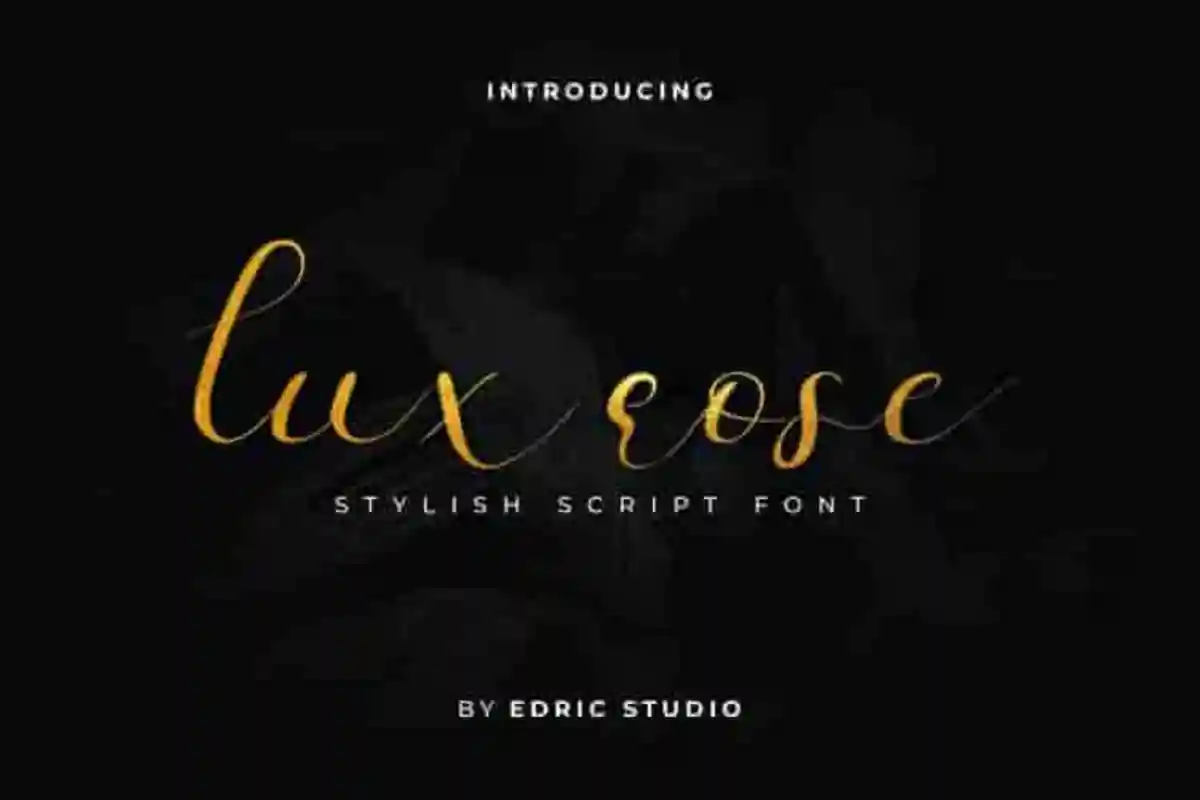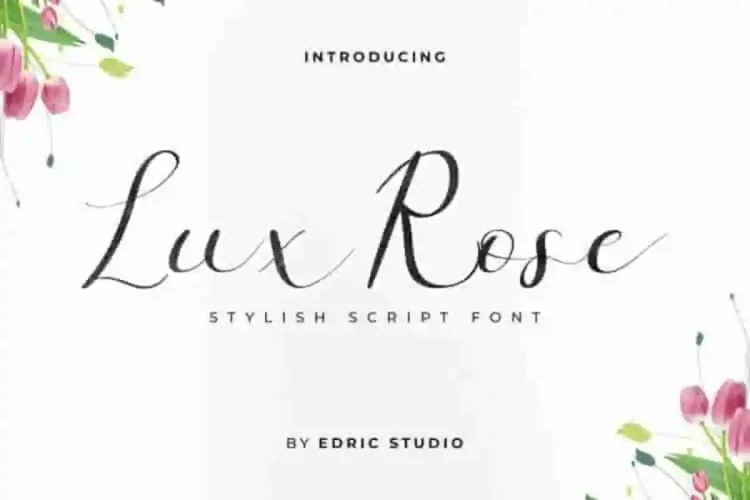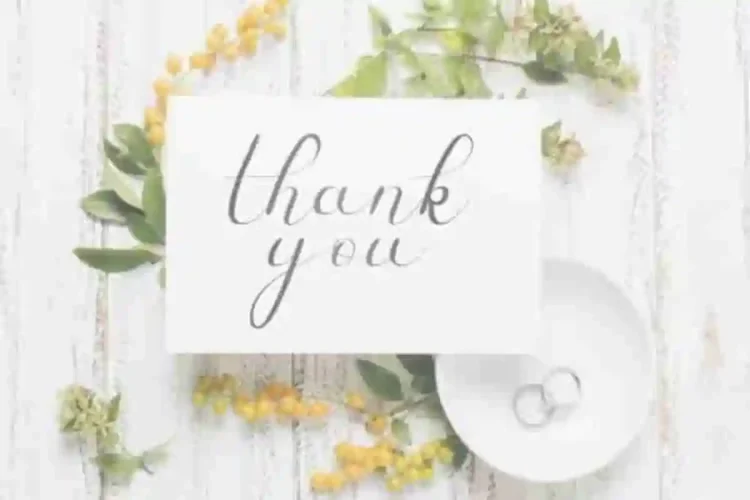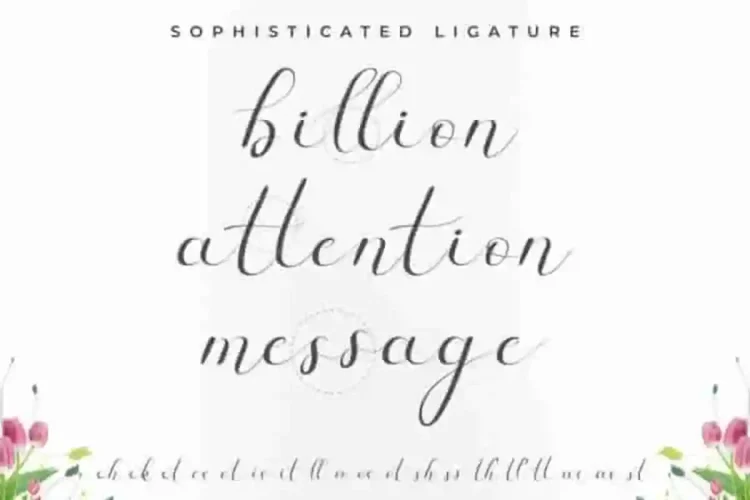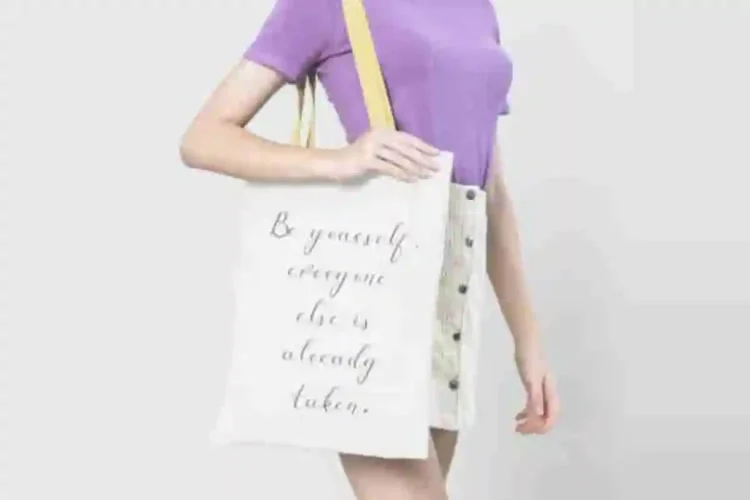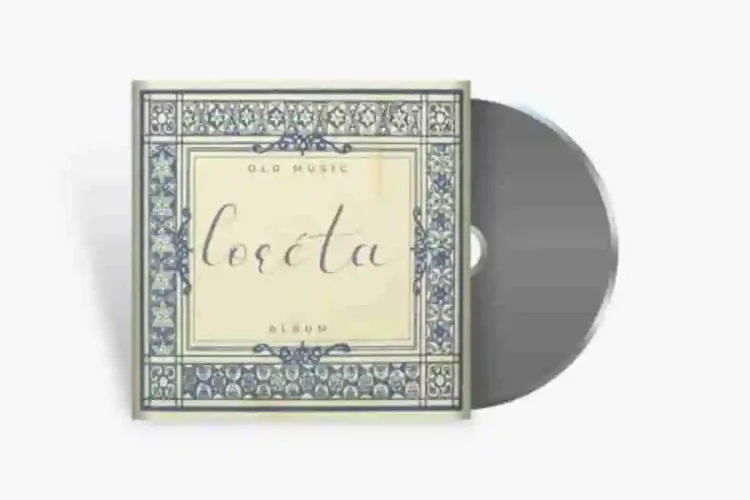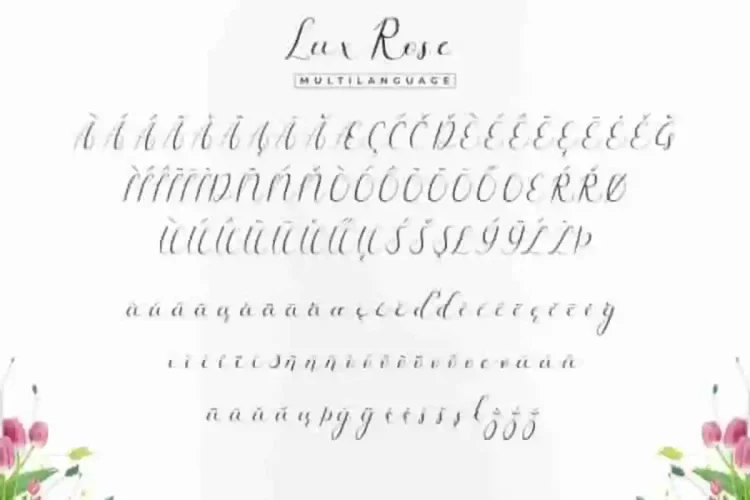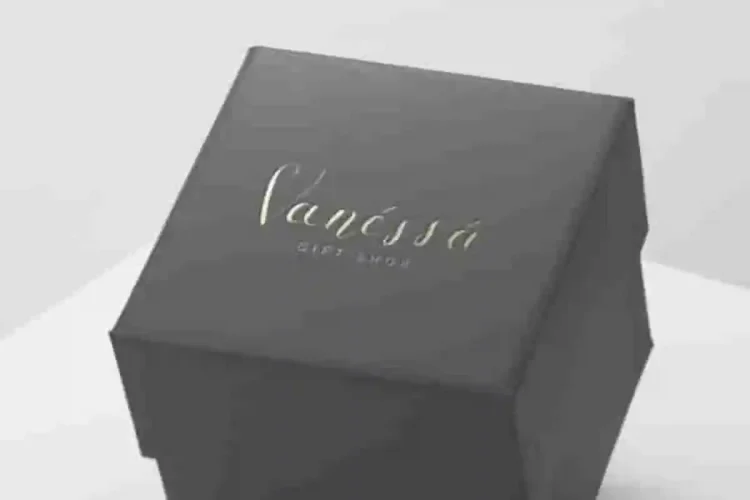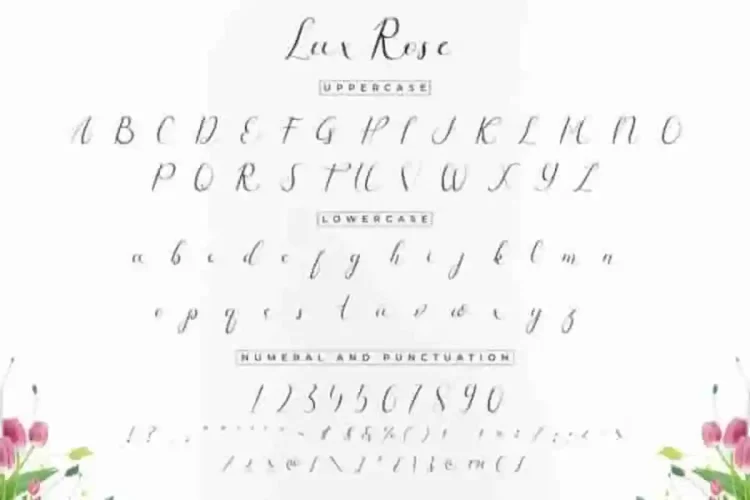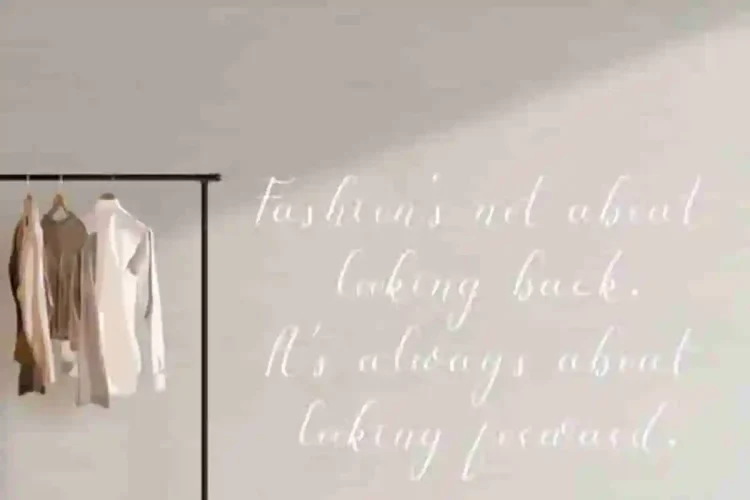
Lux Rose Calligraphy Script Font
EDRIC Studio, Present to you : Lux Rose Calligraphy Script Font
This is our newest product, handmade by Widi and Sarah. This is a luxurious calligraphy font, handcrafted here in Indonesia.
Lux Rose Calligraphy Script Font has a fun characters/glyphs set, perfectly managed with well spaced and kerning. The theme style of this font will be fun,  comic, calligraphy, classic and script style.
Lux Rose Calligraphy Script Font will be awesome for any projects including : branding, logo, stationery, business card, signage, flyer, brochure etc. Almost all industries will be match for this typeface: wedding, events, real estate, architect, law firm, florist, gardening, makeup artist, travel, hotel, musician etc.